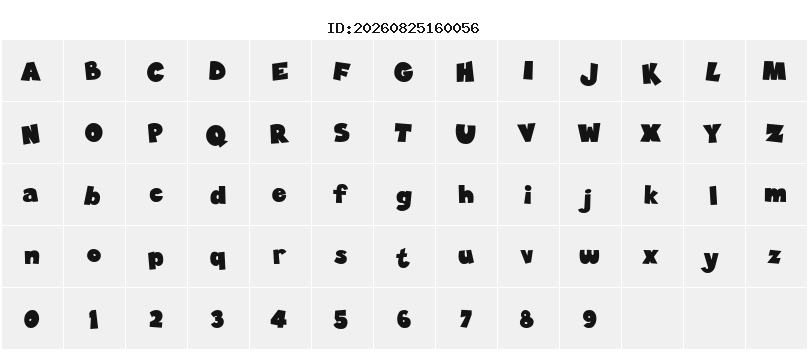
About SMCOrlando.ttf
SMCOrlando.ttf is a modern, elegant sans-serif font designed for ultimate readability and visual harmony. Perfect for branding, headlines, web design, and print materials.